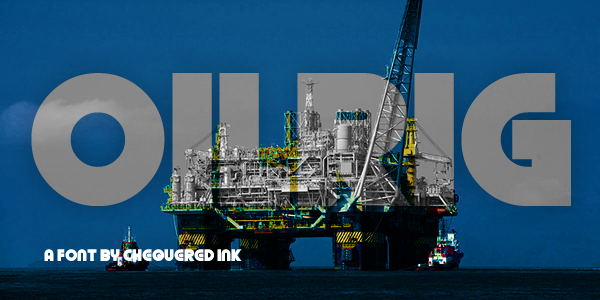
Oilrig
Named for: The chemistry mnemonic (Oxidation is loss (of electrons), reduction is gain)
This is a clean counterpart to Distortion Dos Analogue.